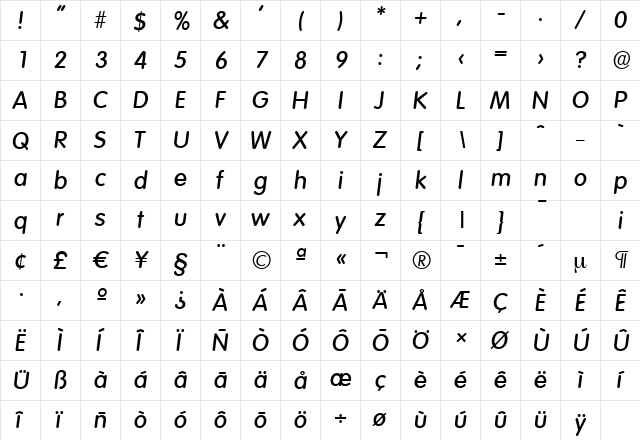
VolkswagenSerial-Medium Italic Font Preview
VolkswagenSerial-Medium Italic
Design Context for VolkswagenSerial-Medium Typeface
VolkswagenSerial-Medium offers clean, dependable letterforms without strong stylistic allegiance, making it a practical choice for designers who need flexibility. The dynamic lean of this cut emphasises speed and emphasis in any layout.